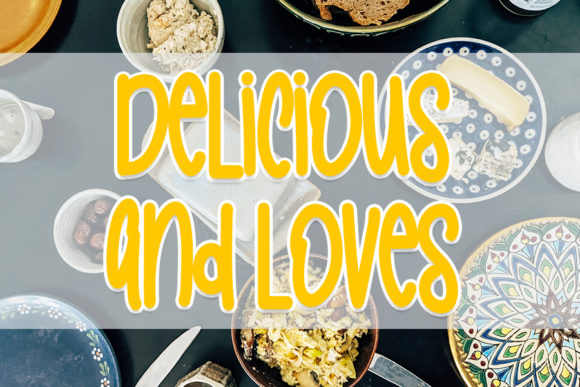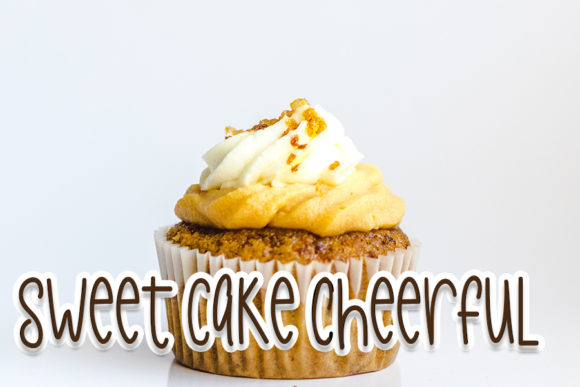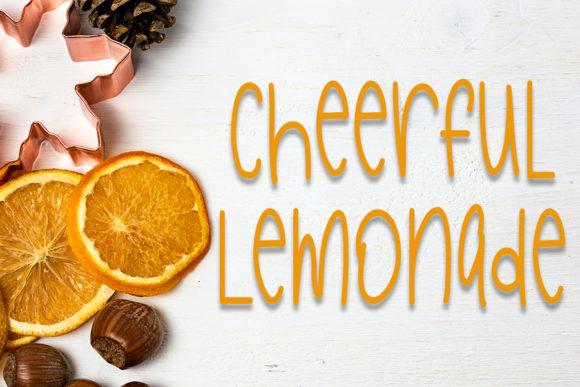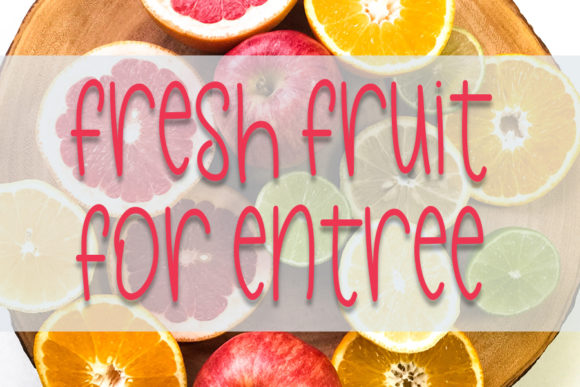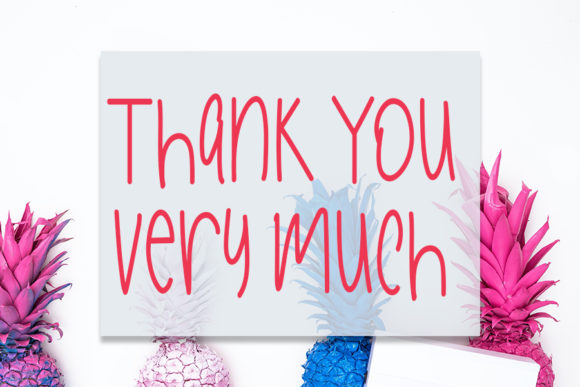
The Butter Spice Font: A Deliciously Fun and Casual Handwritten Font
I’ll never forget the time I was working on a design project for a client’s craft business, and I just couldn’t seem to find the right font. The project required a friendly, approachable feel, but every font I tried seemed either too formal or too quirky. That’s when I stumbled upon the Butter Spice font. It was like a breath of fresh air – a fun, casual handwritten font that perfectly captured the natural and adaptable style I was looking for.
An Honest Review of Butter Spice
- ✨ Natural and adaptable style: Butter Spice has a unique ability to fit seamlessly into various design requirements, from crafting and DIY projects to branding and advertising.
- ✅ Ease of use: This font is incredibly easy to work with, even for those who are new to design or typography.
- 💕 Fun and playful vibe: Butter Spice adds a touch of whimsy and personality to any design, making it perfect for creative projects.
While Butter Spice is an amazing font, there are a few things to keep in mind:
- 🤔 Limited formal use: Due to its casual nature, Butter Spice may not be the best choice for formal or professional projects that require a more serious tone.
- ⚠️ Legibility at small sizes: As with many handwritten fonts, Butter Spice may become less legible at very small sizes (below 10-12 points). It’s best used at larger sizes where its unique character can shine.
The Backstory of Butter Spice
Butter Spice was designed with the creative hobbyist in mind. Its creator aimed to craft a font that would be both fun and functional, perfect for a wide range of design projects. Inspired by the warmth and comfort of handwritten letters, Butter Spice brings a personal touch to any design.
Q: What type of projects is Butter Spice best suited for?
A: Butter Spice is perfect for creative projects, such as crafting, DIY, and handmade businesses, as well as branding and advertising projects that require a friendly, approachable feel.
Q: Is Butter Spice a difficult font to read?
A: Butter Spice is generally easy to read, but as with any handwritten font, it may become less legible at very small sizes. Use it at larger sizes to ensure maximum readability.